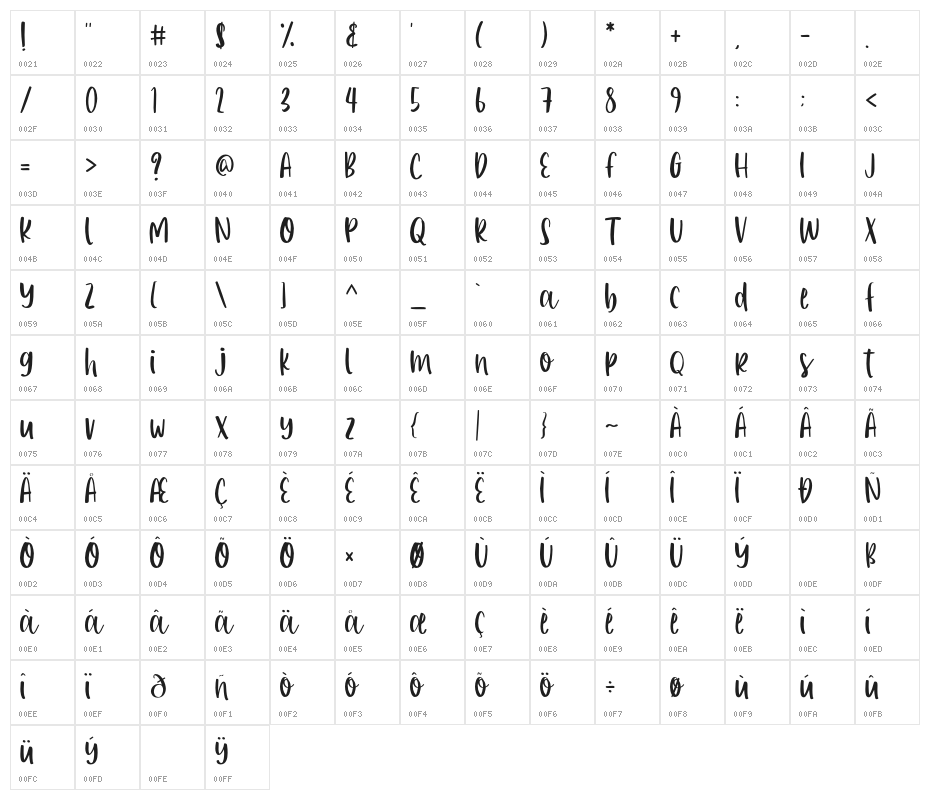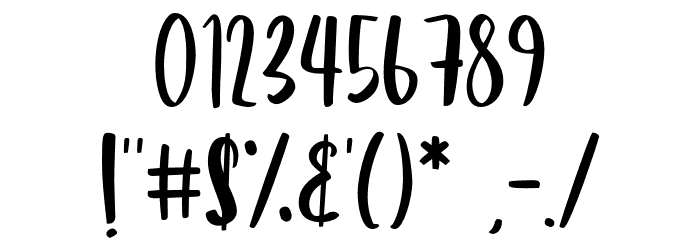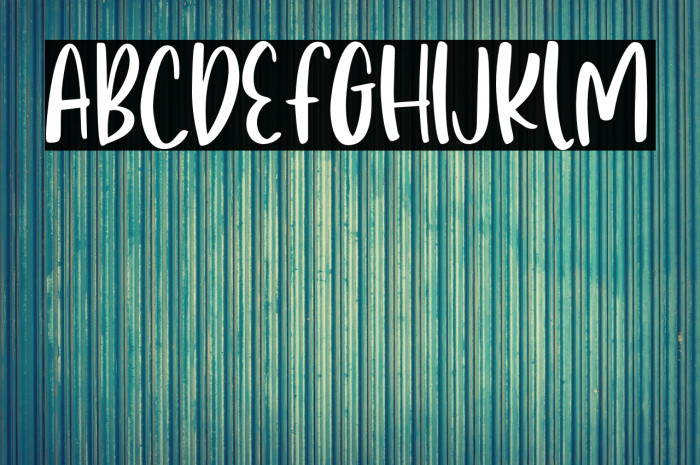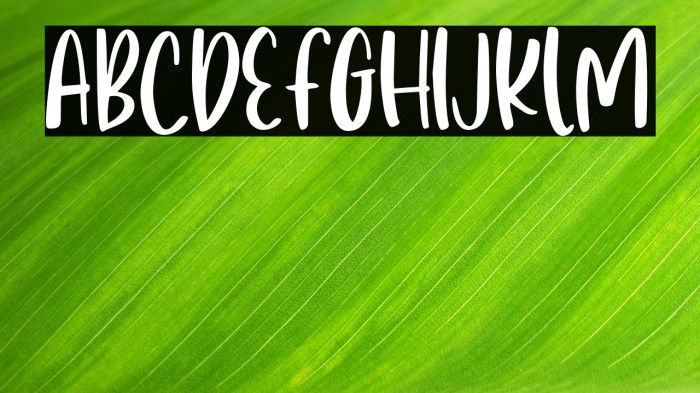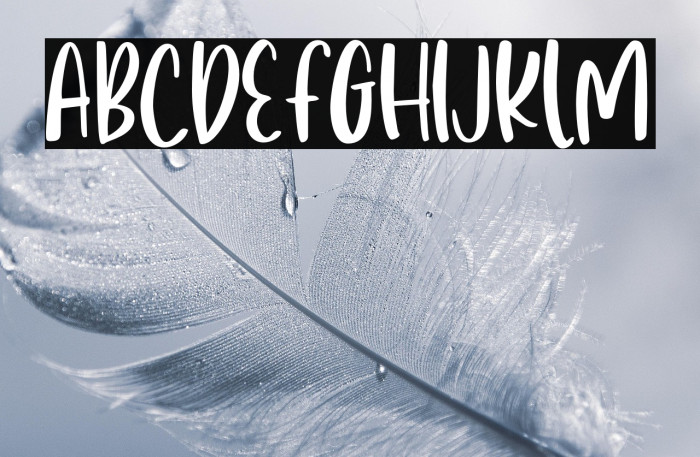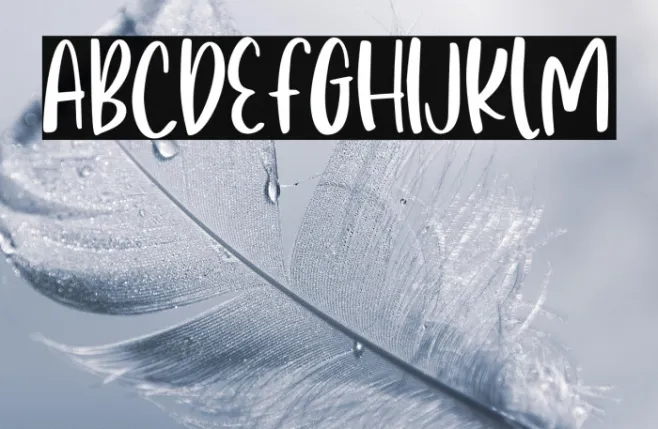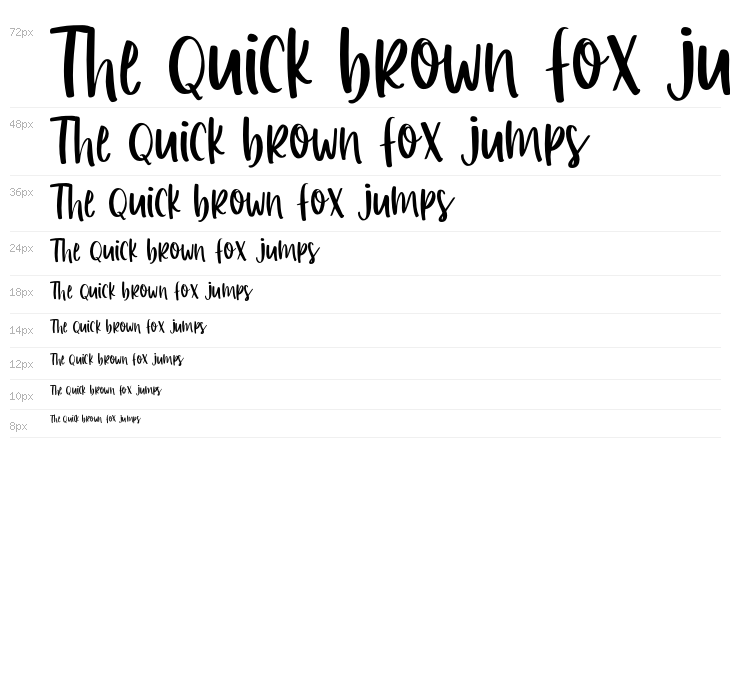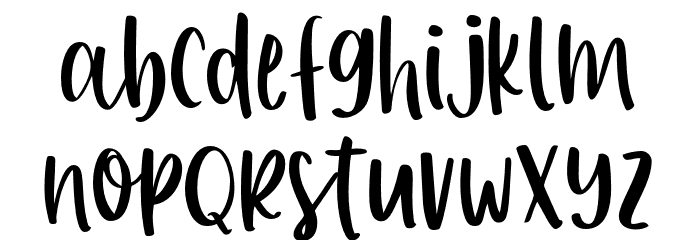
Riveria-Regular Font
This font features a playful and energetic handwritten style, characterized by its bold and flowing letterforms. The uppercase and lowercase letters exhibit a consistent rhythm with a slight slant, giving it a dynamic and informal appearance. The strokes are thick and rounded, providing a friendly and approachable feel. The numerals and special characters maintain the same lively aesthetic, ensuring uniformity across all glyphs. This font is well-suited for projects that require a personal touch or a casual vibe.
| Proposed Projects | Ideal for greeting cards, invitations, posters, and branding that seeks a personal and friendly tone. |